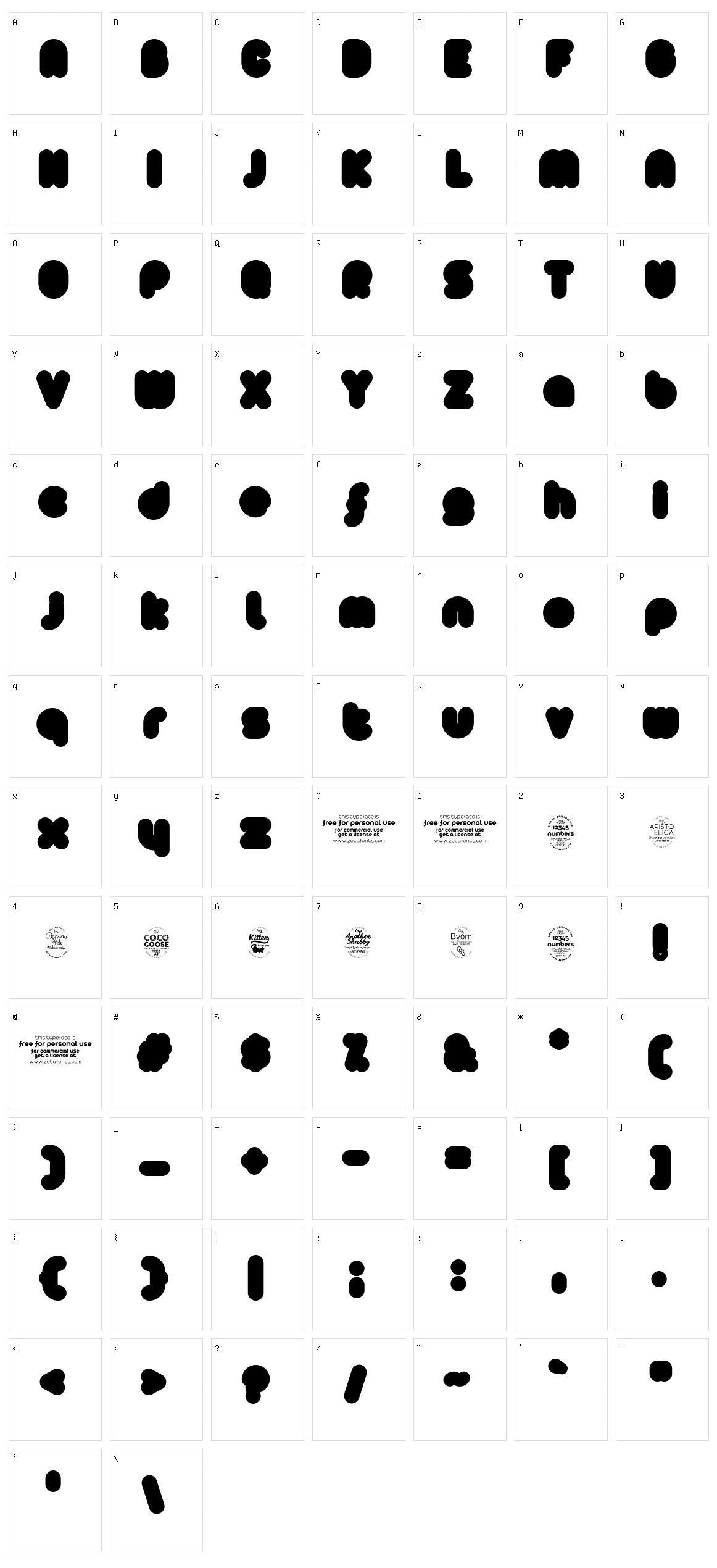
Arista or Arista [z] is the first version of Arista typeface family. It's a soft round font, perfect for 2.0 logos and contemporary headlines. It includes a light version and an extrafilled version for 2.0 style fat borders. Arista [z] has been developed further into the Arista 2.0 family, that comprises six weights and an alternate version. If you like Arista [z] check out Arista 2.0.